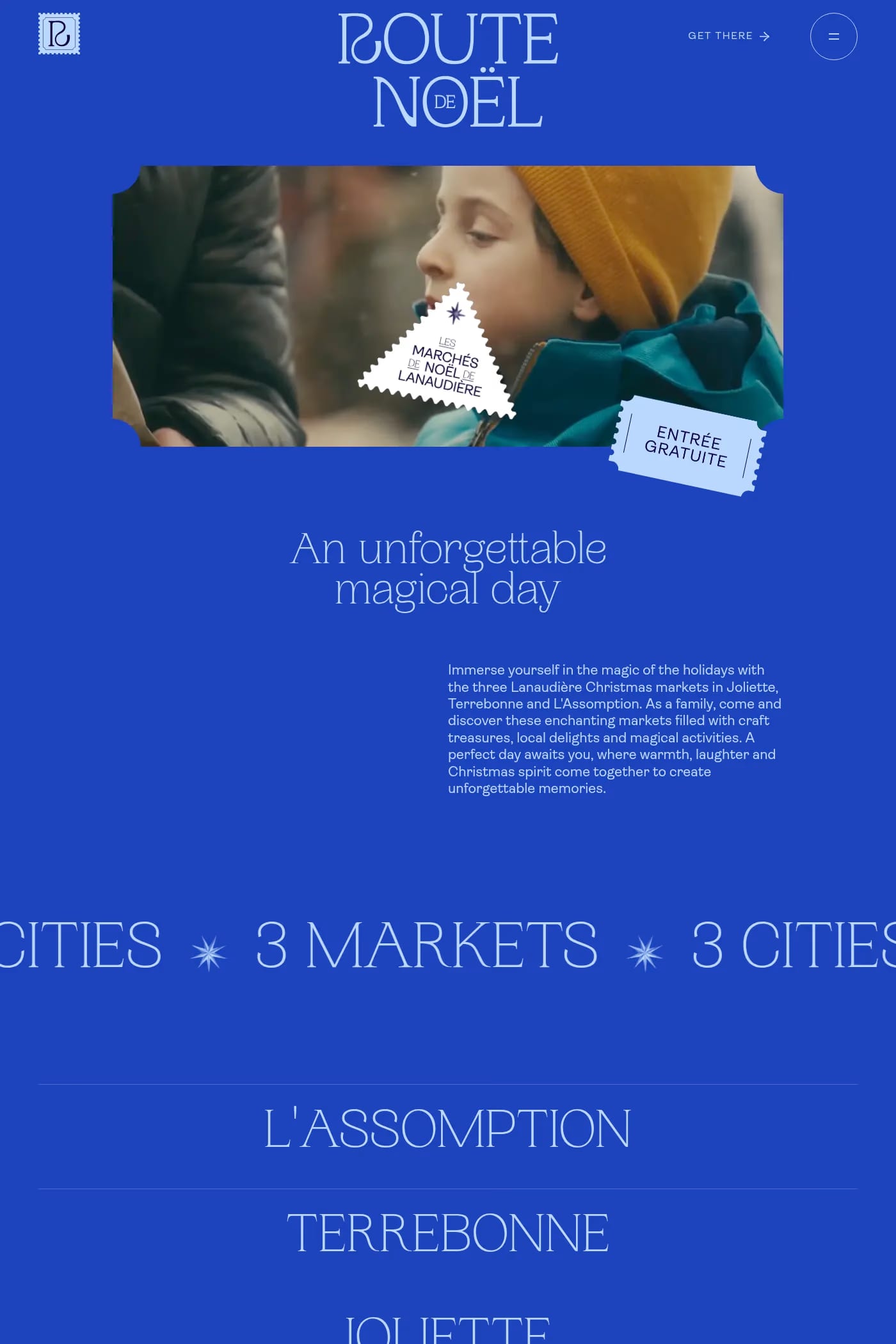
Woodland is a serif typeface from Pangram.
Woodland is a beautiful, curvy, versatile typeface with 6 weights. Each 2500 glyphs are crafted with great attention to details to make this font unique and fluid in all its shapes and weights.